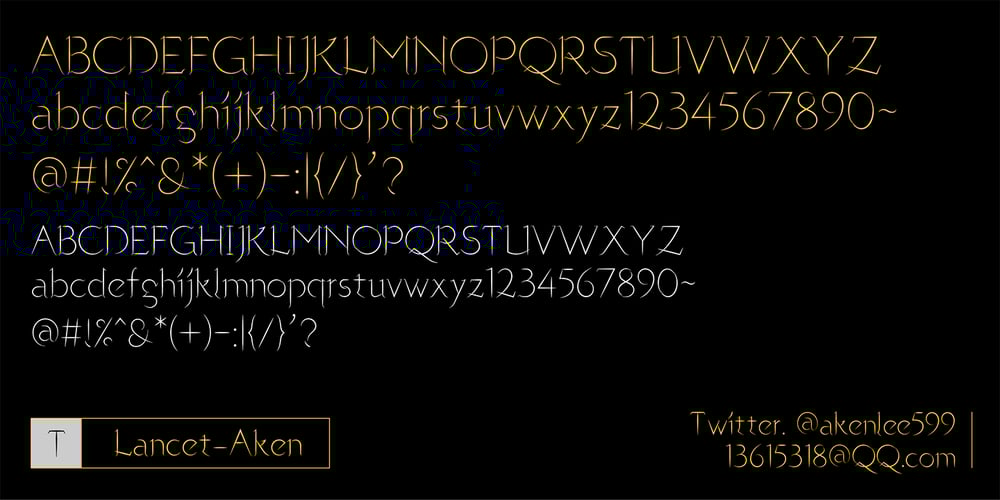
Lancet-Aken Font Family was designed by Lee Aken and published by Akenlee Type. Lancet-Aken contains 2 styles and family package options. I want the font to have a vitality of life, Visually, the details are beautiful, long and fashionable, low-key and elegant, quiet and delicate, with the aesthetic feeling of fashion, not aggressive.